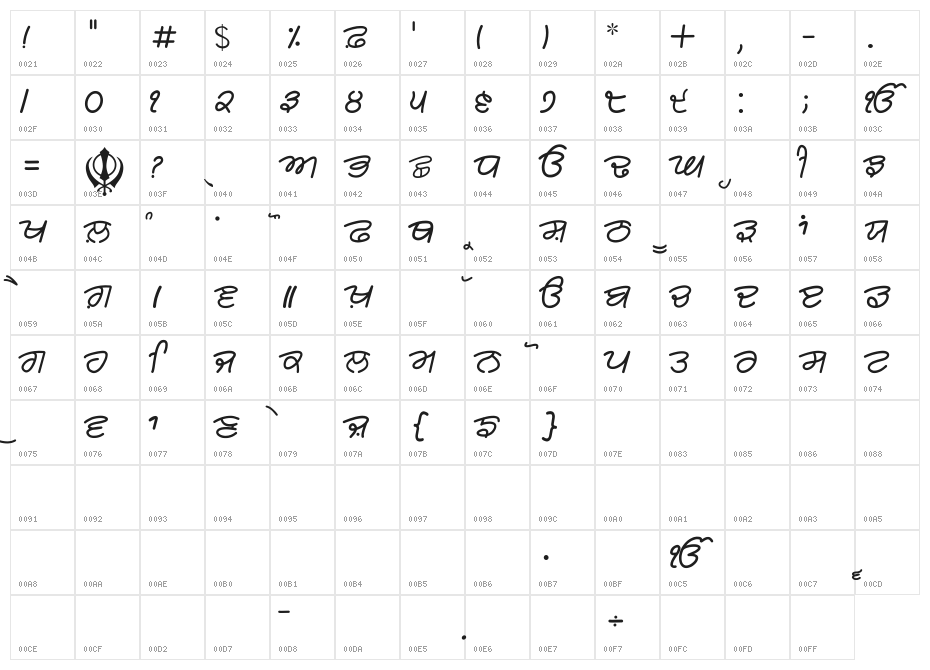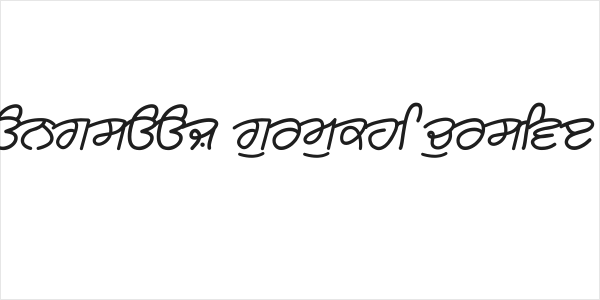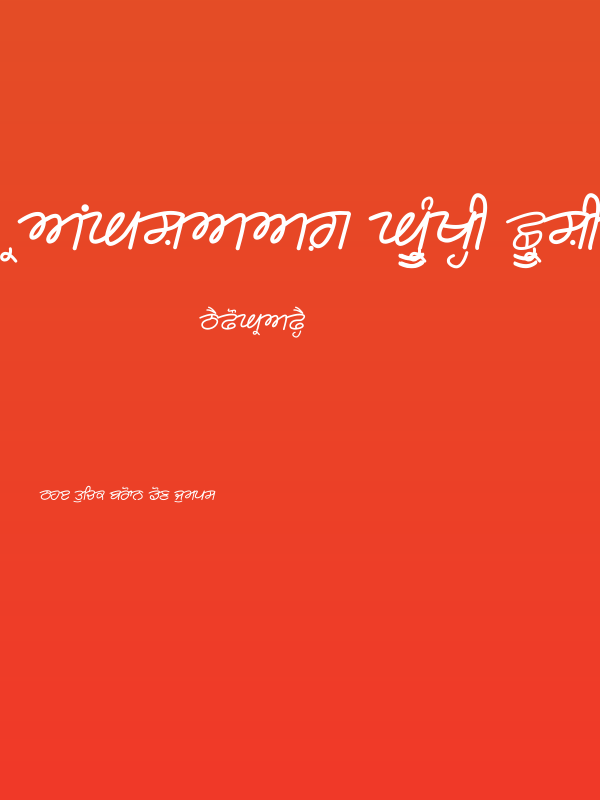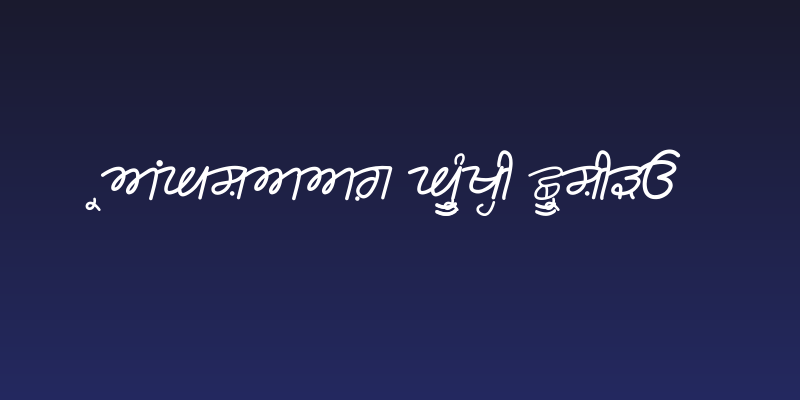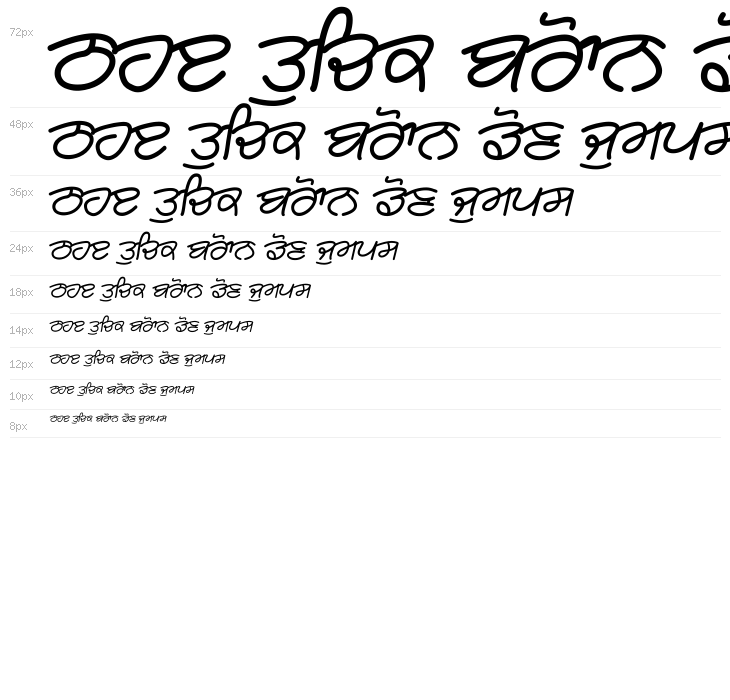
Rangsaaz gurmukhi cursive Font
Rangsaaz gurmukhi cursive Description
This font features a flowing, cursive style that captures the essence of traditional Gurmukhi script with a modern twist. The characters are elegantly connected, creating a seamless and fluid appearance. The strokes are smooth and rounded, with a consistent thickness that adds to the readability while maintaining an artistic flair. The numerals and special characters are designed to complement the script, offering a cohesive look across all elements. This font is ideal for projects that require a touch of cultural authenticity combined with contemporary design aesthetics.
| Use Case | Logos, Invitations, Cultural Projects |
| Proposed Projects | Ideal for cultural projects, artistic designs, invitations, and branding that require a traditional yet modern Gurmukhi aesthetic. |